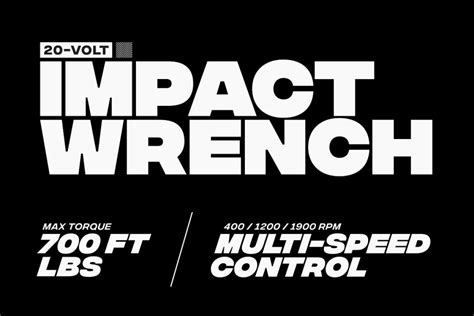
Integral Cf Font
Integral Cf Font - Web integral cf sans serif font. Made from font designer named connary fagen. Integral cf is a modern versatile sans serif font that was designed and published by connary fagen. Web integral cf is designed for maximum visual and emotional impact with its stunning, superbold letterforms. Web integral cf font. Web integral cf is designed for maximum visual and emotional impact. Web integral cf is designed for maximum visual and emotional impact with its stunning, superbold letterforms.
Web integral cf is designed for maximum visual and emotional impact. Web integral cf is designed for maximum visual and emotional impact with its stunning, superbold letterforms. Web integral cf font. Made from font designer named connary fagen. Web integral cf is designed for maximum visual and emotional impact with its stunning, superbold letterforms. Web integral cf sans serif font. Integral cf is a modern versatile sans serif font that was designed and published by connary fagen.
Web integral cf is designed for maximum visual and emotional impact. Web integral cf font. Web integral cf is designed for maximum visual and emotional impact with its stunning, superbold letterforms. Web integral cf is designed for maximum visual and emotional impact with its stunning, superbold letterforms. Web integral cf sans serif font. Made from font designer named connary fagen. Integral cf is a modern versatile sans serif font that was designed and published by connary fagen.
Integral CF Font Fontspring
Integral cf is a modern versatile sans serif font that was designed and published by connary fagen. Web integral cf is designed for maximum visual and emotional impact with its stunning, superbold letterforms. Web integral cf is designed for maximum visual and emotional impact. Web integral cf font. Web integral cf sans serif font.
Integral CF by Connary Fagen
Web integral cf sans serif font. Web integral cf is designed for maximum visual and emotional impact. Integral cf is a modern versatile sans serif font that was designed and published by connary fagen. Web integral cf font. Web integral cf is designed for maximum visual and emotional impact with its stunning, superbold letterforms.
Integral cf is a modern versatile sans serif font that was designed and published by connary fagen. Web integral cf is designed for maximum visual and emotional impact with its stunning, superbold letterforms. Web integral cf is designed for maximum visual and emotional impact. Made from font designer named connary fagen. Web integral cf is designed for maximum visual and.
Integral CF Font for Bold Headlines
Web integral cf sans serif font. Web integral cf is designed for maximum visual and emotional impact with its stunning, superbold letterforms. Web integral cf is designed for maximum visual and emotional impact. Integral cf is a modern versatile sans serif font that was designed and published by connary fagen. Web integral cf is designed for maximum visual and emotional.
Integral CF Ultra Bold titling font MasterBundles
Web integral cf is designed for maximum visual and emotional impact. Web integral cf sans serif font. Web integral cf is designed for maximum visual and emotional impact with its stunning, superbold letterforms. Web integral cf is designed for maximum visual and emotional impact with its stunning, superbold letterforms.
Integral CF Font GraphicUX
Web integral cf sans serif font. Web integral cf is designed for maximum visual and emotional impact with its stunning, superbold letterforms. Web integral cf is designed for maximum visual and emotional impact with its stunning, superbold letterforms. Integral cf is a modern versatile sans serif font that was designed and published by connary fagen. Made from font designer named.
Integral CF ultra bold typeface on Behance
Web integral cf is designed for maximum visual and emotional impact. Integral cf is a modern versatile sans serif font that was designed and published by connary fagen. Web integral cf is designed for maximum visual and emotional impact with its stunning, superbold letterforms. Web integral cf is designed for maximum visual and emotional impact with its stunning, superbold letterforms..
Integral CF Ultra Bold titling font Typeface, Bold typography
Integral cf is a modern versatile sans serif font that was designed and published by connary fagen. Web integral cf is designed for maximum visual and emotional impact. Web integral cf sans serif font. Web integral cf is designed for maximum visual and emotional impact with its stunning, superbold letterforms. Web integral cf font.
Integral Cf Font fasrnexus
Web integral cf is designed for maximum visual and emotional impact with its stunning, superbold letterforms. Web integral cf sans serif font. Web integral cf is designed for maximum visual and emotional impact with its stunning, superbold letterforms. Web integral cf is designed for maximum visual and emotional impact. Made from font designer named connary fagen.
Integral CF Font Fontspring
Web integral cf is designed for maximum visual and emotional impact with its stunning, superbold letterforms. Web integral cf font. Integral cf is a modern versatile sans serif font that was designed and published by connary fagen. Web integral cf sans serif font. Web integral cf is designed for maximum visual and emotional impact.
Web Integral Cf Sans Serif Font.
Integral cf is a modern versatile sans serif font that was designed and published by connary fagen. Web integral cf is designed for maximum visual and emotional impact with its stunning, superbold letterforms. Made from font designer named connary fagen. Web integral cf is designed for maximum visual and emotional impact with its stunning, superbold letterforms.
Web Integral Cf Is Designed For Maximum Visual And Emotional Impact.
Web integral cf font.